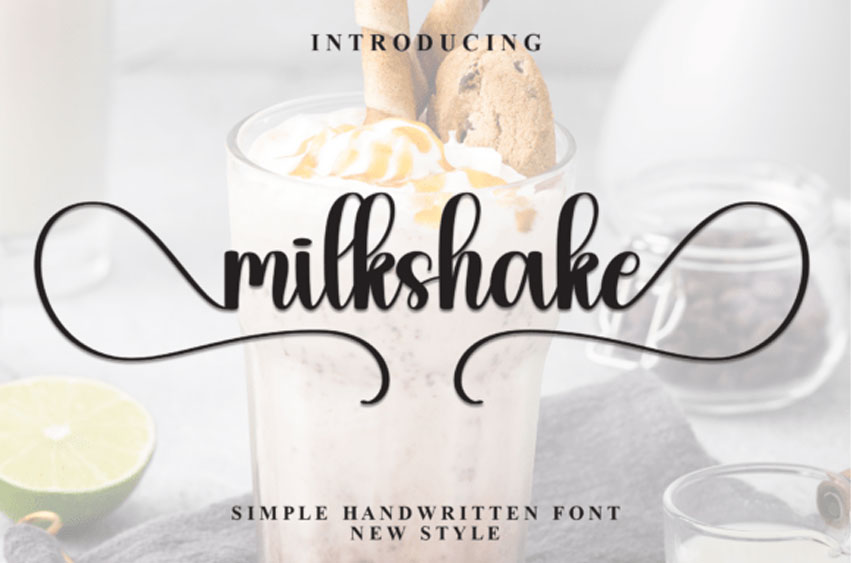
Milkshake Font
Milkshake Font Experience the charm of the Milkshake, your go-to choice for giving an added layer of sweetness and warmth to your creations. This friendly, engaging script beautifully encapsulates playfulness and elegance, making it an unparalleled choice for wedding invitations, cards or any design craving a dash of delight.
Its adorable aesthetic is sure to captivate viewers, effortlessly adding a lighthearted and fun touch to your design palette.